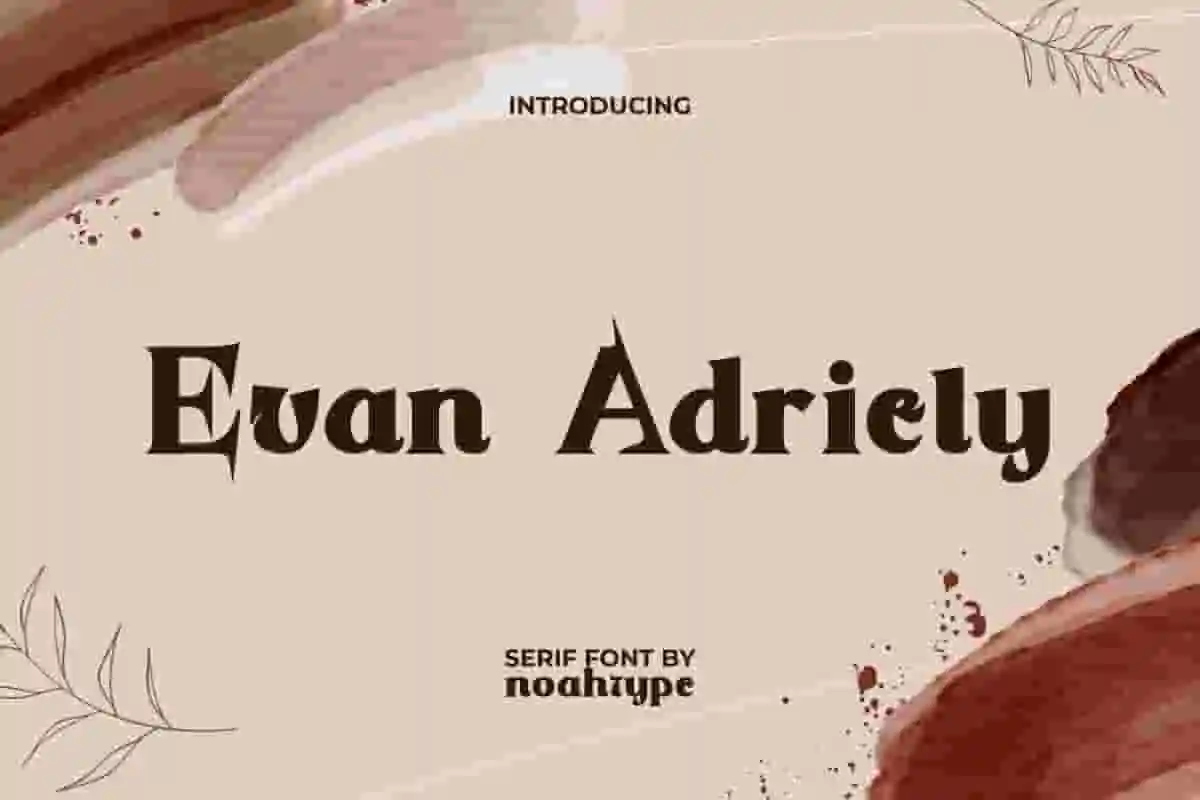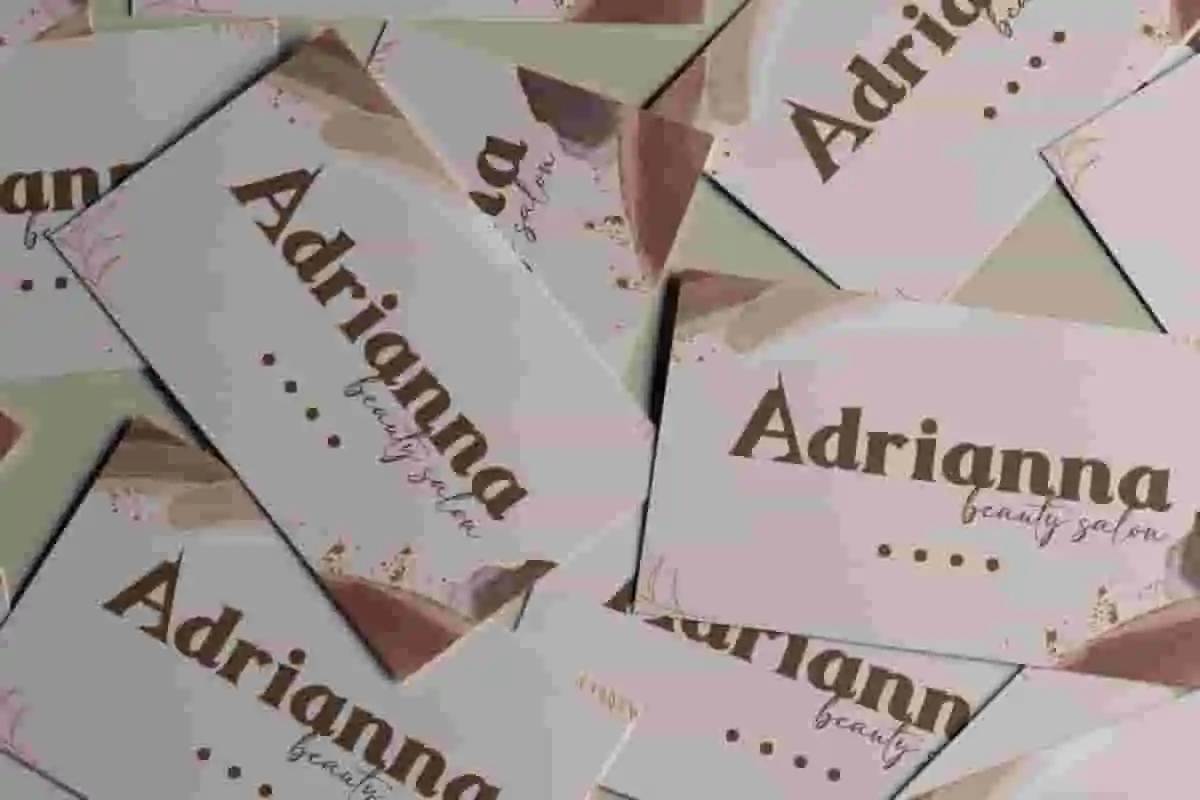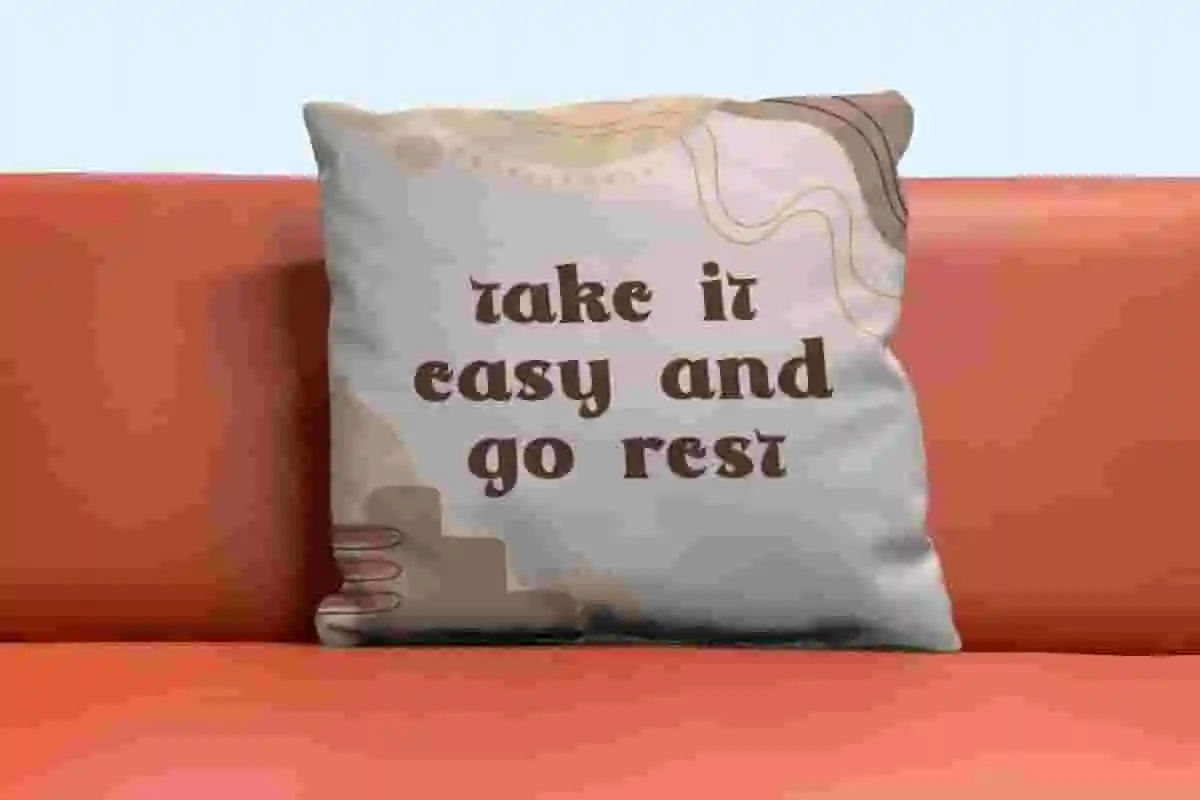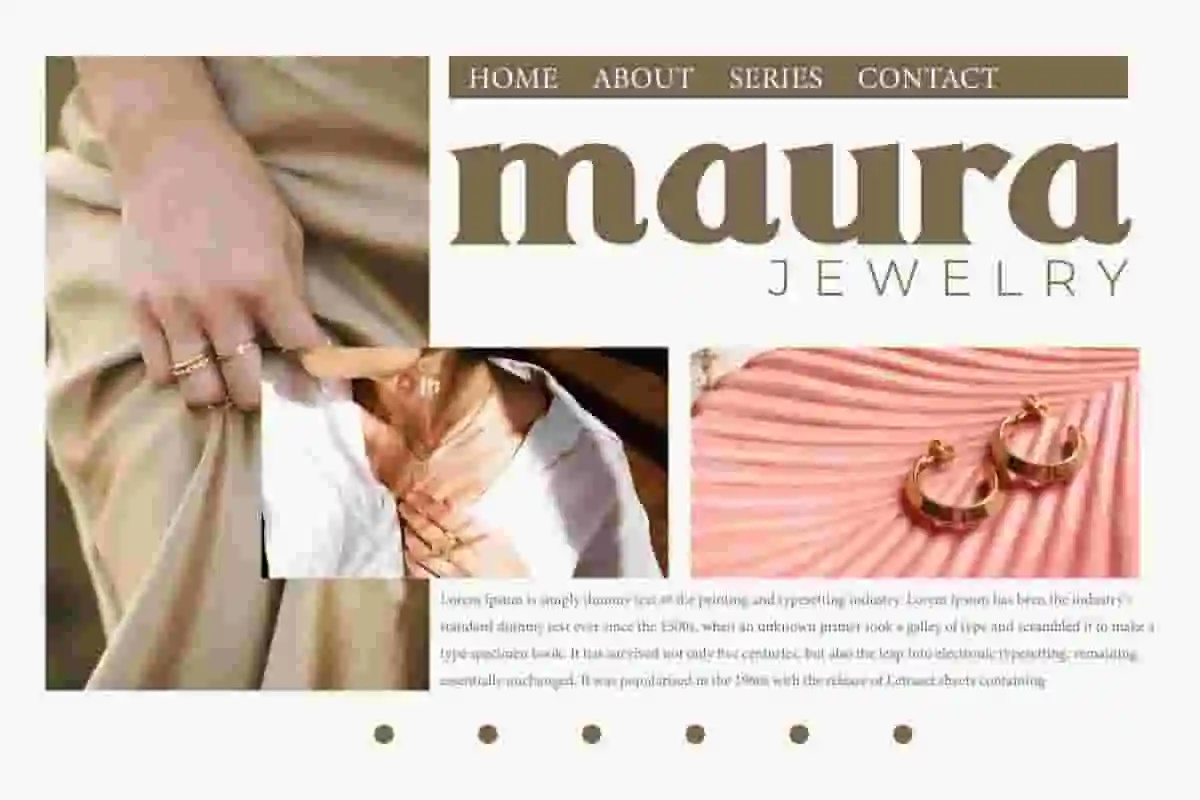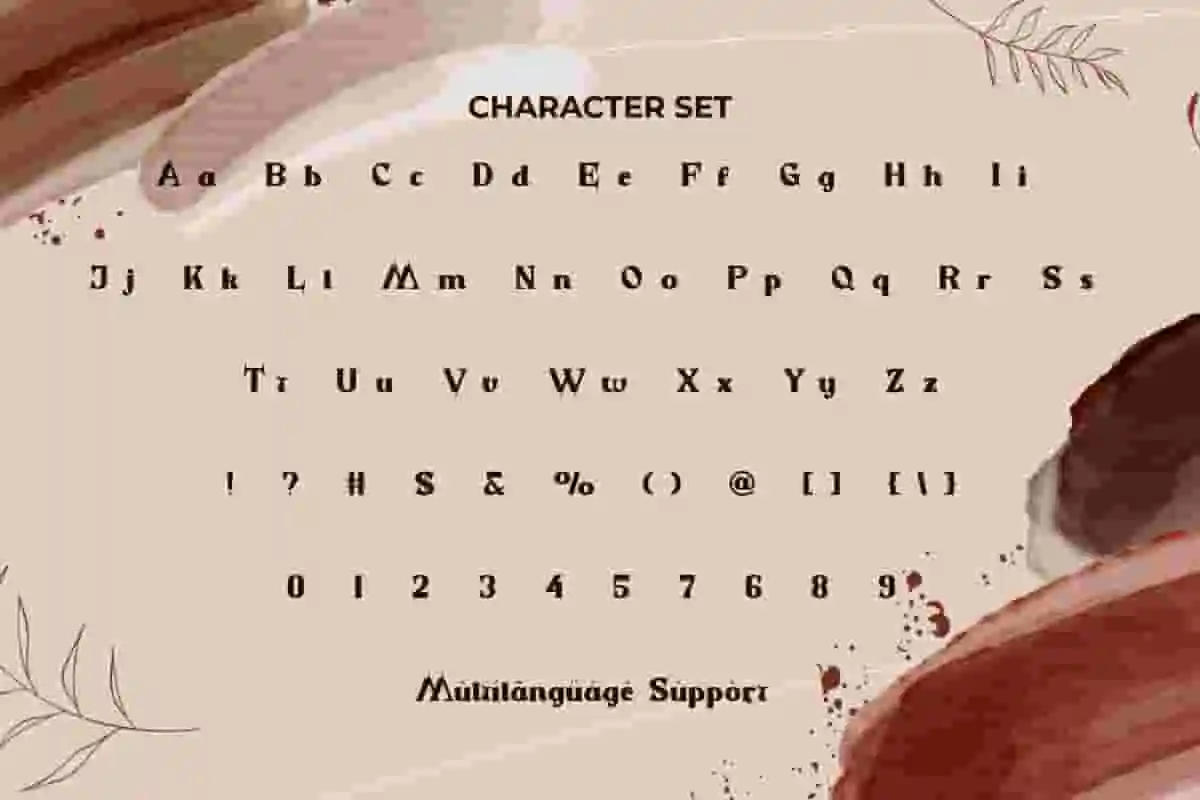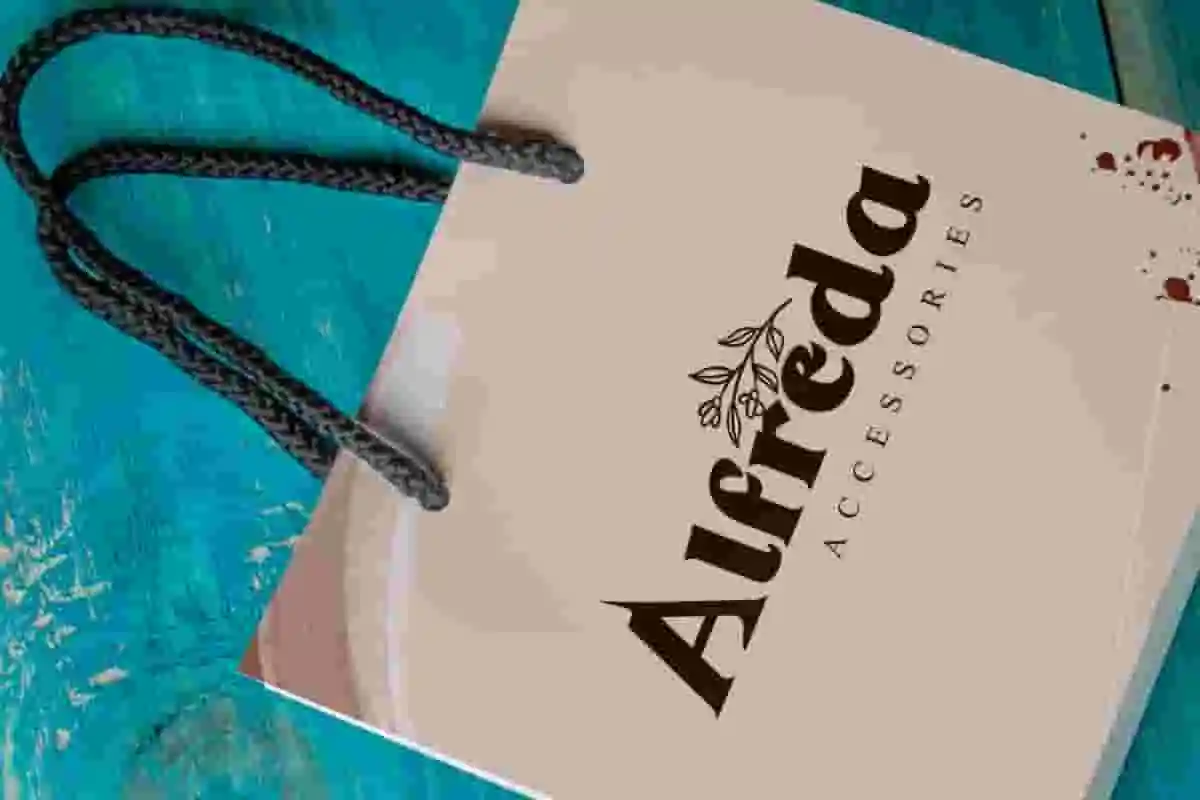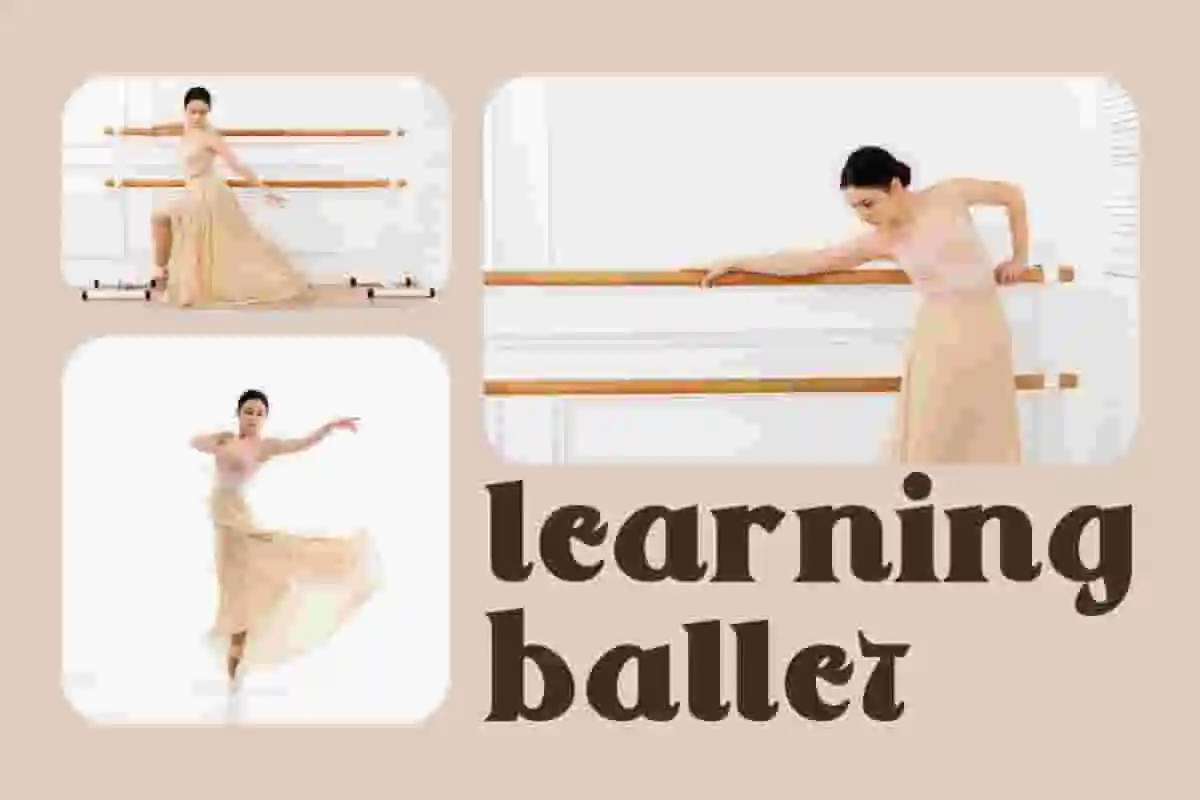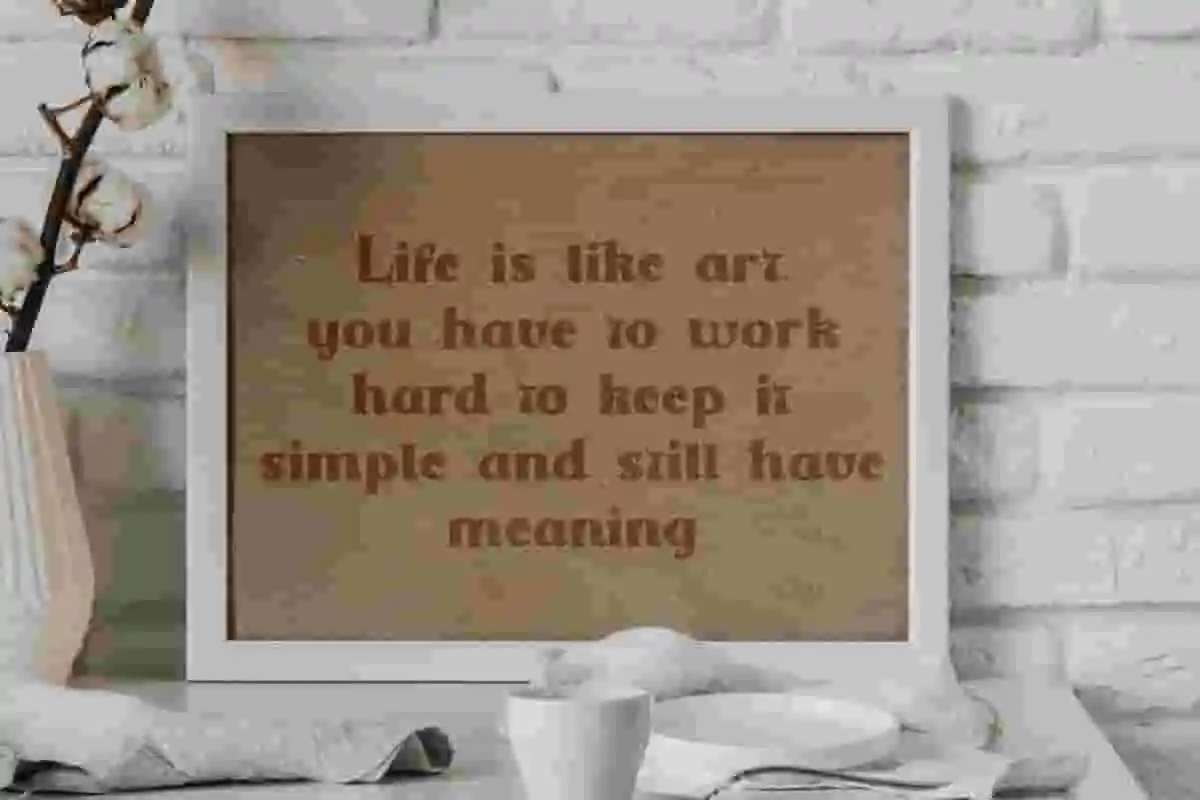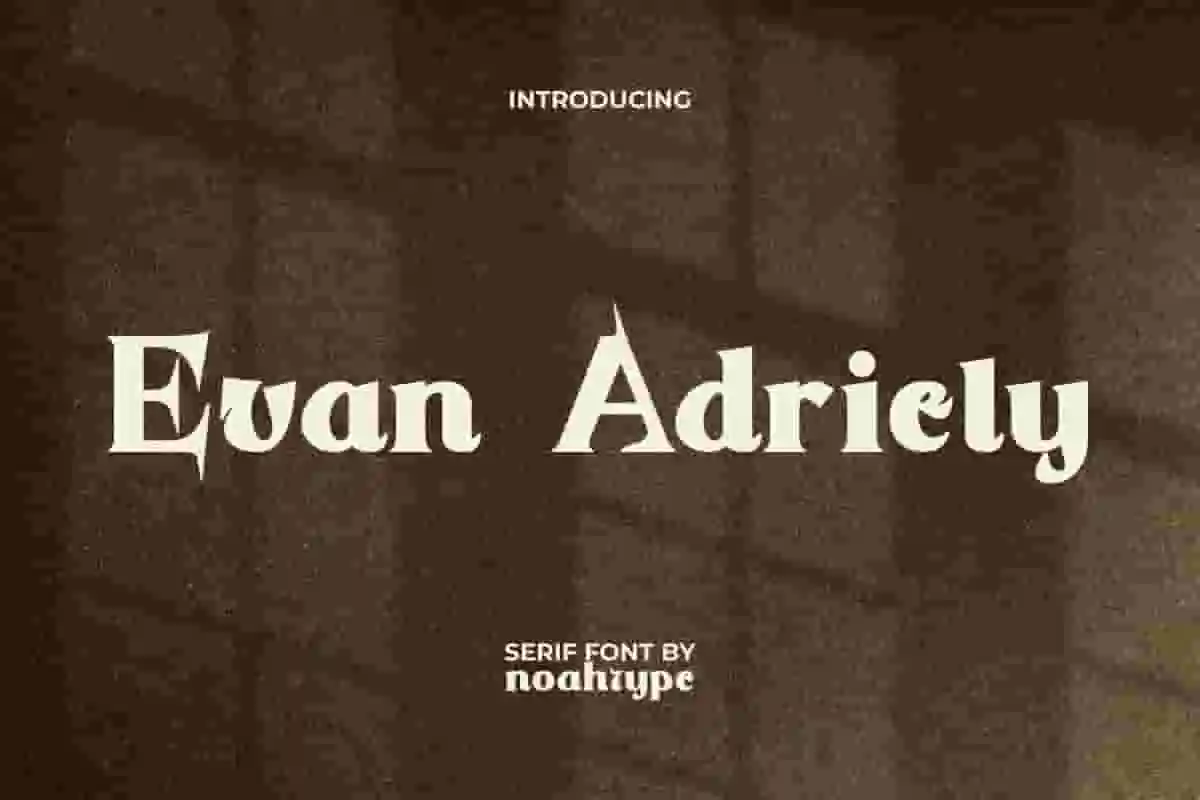
Evan Adriely Font is a stylish but sharp serif display font with elegant style by NoahType. This font has a medium weight which makes it look bold and beautiful on designs. It will be good for any designs, such as stationery, brand image, invitation, custom design, label, marketing material, menu, poster, product packaging, quotes, signage, web and many more!
Evan Adriely Font includes a complete set of Uppercase and Lowercase Basic Characters, Numerals, Punctuation and Symbol. The character of this font will give unique look and also a perfect choice for many industries, such as beauty product, event or wedding organizer, accessories, advertising, fashion, movie, photography, printing, publishing, spa and salon, travel, etc.